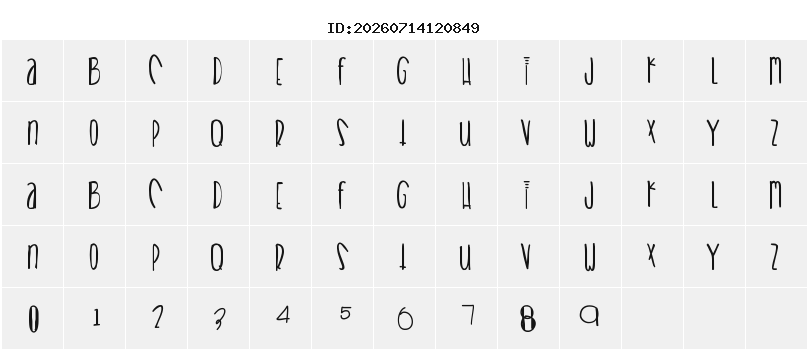
Heartbreaks Preview
• Font Name: Heartbreaks
• Full Font Name: Heartbreaks
About Heartbreaks.ttf
Heartbreaks.ttf is a modern, elegant sans-serif font designed for ultimate readability and visual harmony. Perfect for branding, headlines, web design, and print materials.